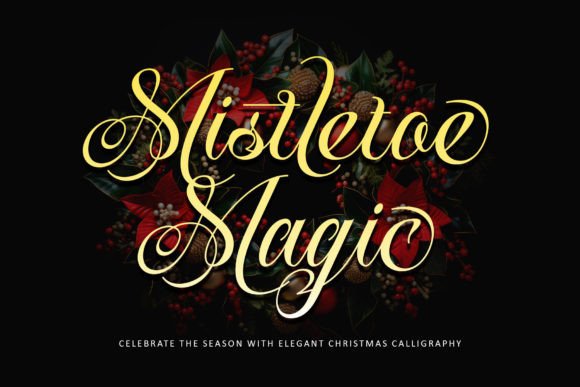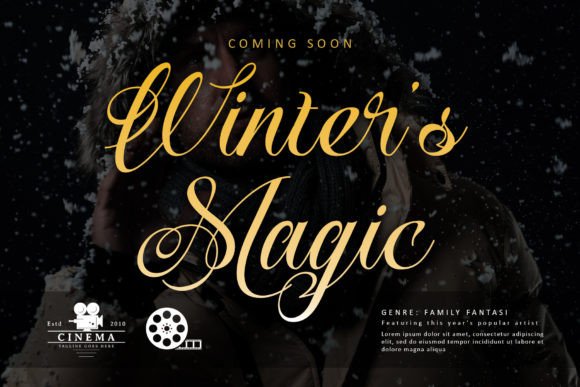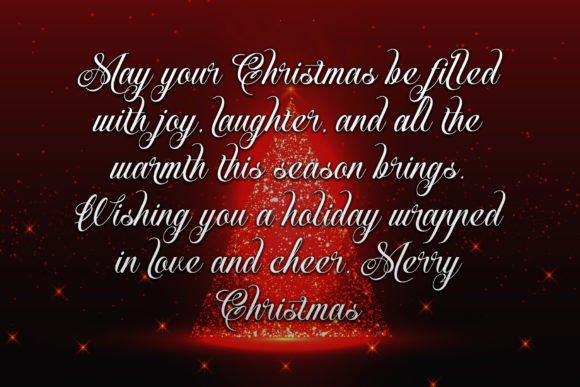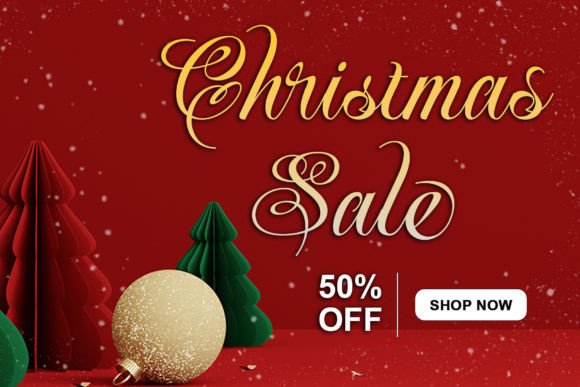
Mistletoe Magic Font
About the Mistletoe Magic Font
We are excited to introduce Mistletoe Magic Font, a must-have typeface for any serious designer. Introducing Mistletoe Magic, a captivating calligraphy font that exudes festive elegance and sophistication. Fall in love with its enchanting style, perfect for creating stunning holiday designs. Mistletoe Magic brings a touch of glamour and class to your Christmas moments. This font is PUA encoded, ensuring easy access to all the exquisite glyphs and swashes
Mistletoe Magic’s elegant, slightly playful calligraphy style is ideal for headlines, short text blocks on invitations or greeting cards, and logo designs requiring a touch of festive charm. It excels in branding projects for luxury goods or high-end holiday events. Avoid using it for body text or lengthy paragraphs; its decorative nature makes it less legible for extended reading.
Pairing Mistletoe Magic effectively requires consideration of its ornate style. A clean sans-serif like Open Sans or a geometric sans-serif such as Futura would provide excellent contrast and readability, grounding the design. For a more traditional approach, a classic serif such as Garamond or a simpler serif like Lato would create a sophisticated balance.
The overall personality is sophisticated yet festive; it conveys a sense of refined cheer and celebratory elegance. It’s best suited for brands aiming for a premium, charming, and memorable visual identity, particularly during the holiday season.
Mistletoe Magic Font Usage Examples
Mistletoe Magic Font Example